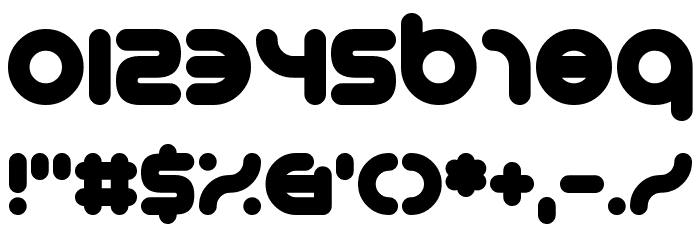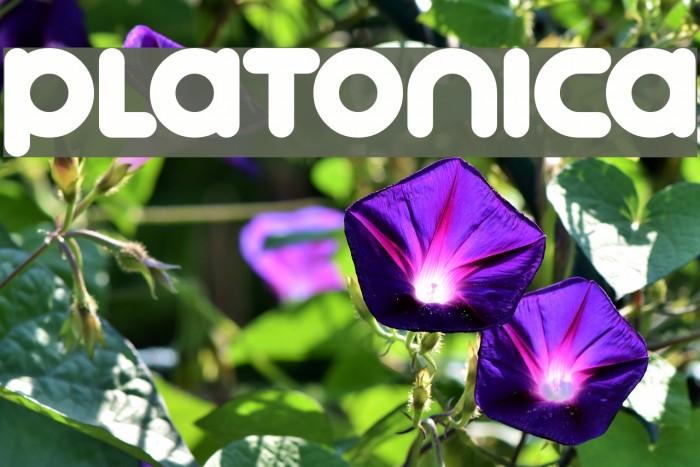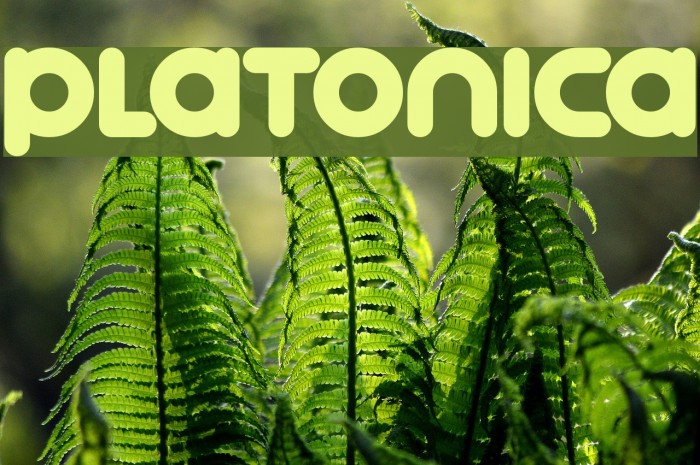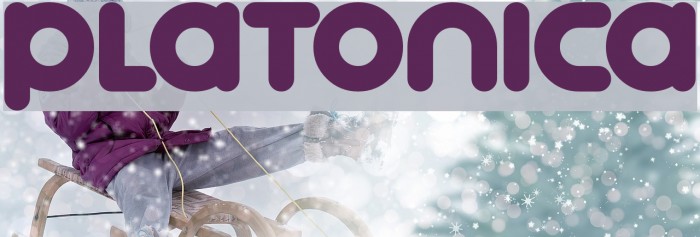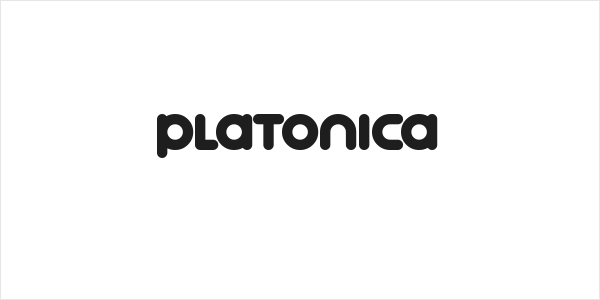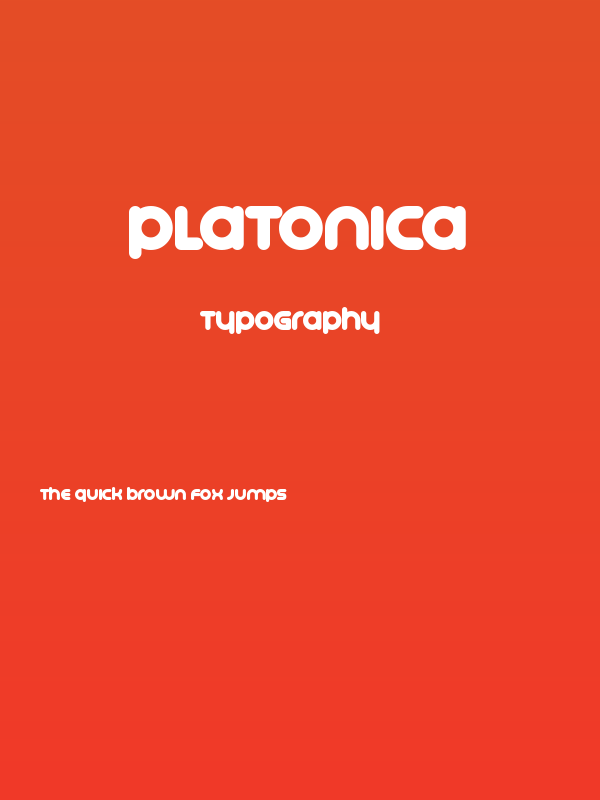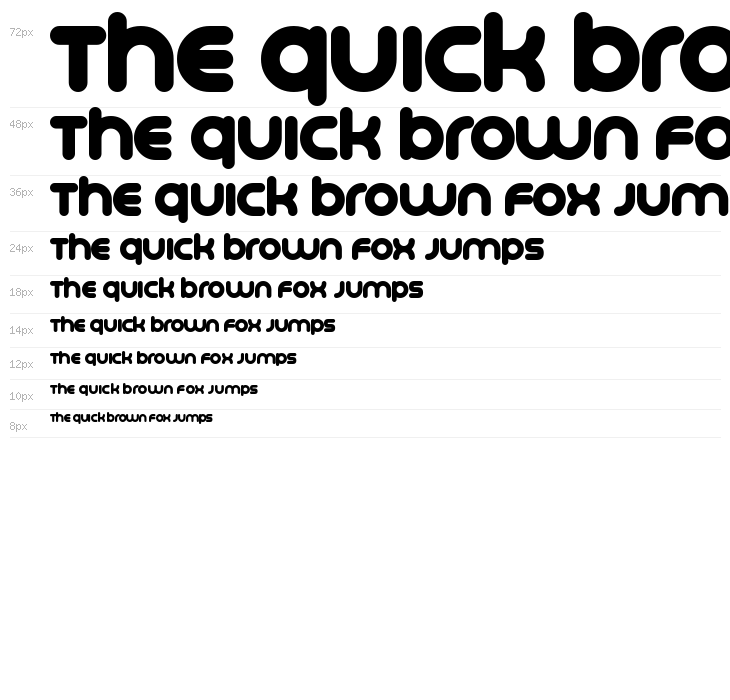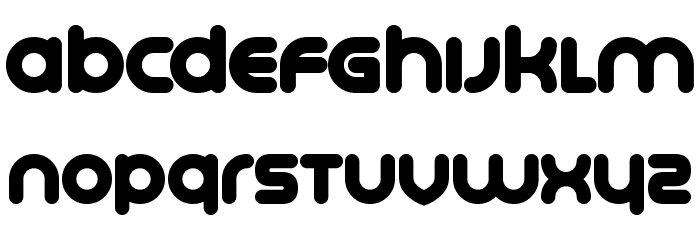
Platonica Font
Platonica Description
This font features a bold, rounded style with a modern and playful aesthetic. The characters are uniformly thick, creating a strong visual impact. The rounded edges and consistent stroke width give it a friendly and approachable feel. The design is clean and geometric, making it suitable for contemporary projects. The numbers and special characters maintain the same rounded and bold characteristics, ensuring consistency across all elements.
| Proposed Projects | Ideal for branding, logos, children's books, and playful advertising campaigns. |